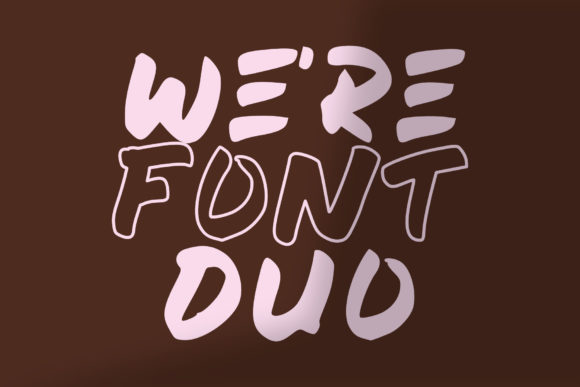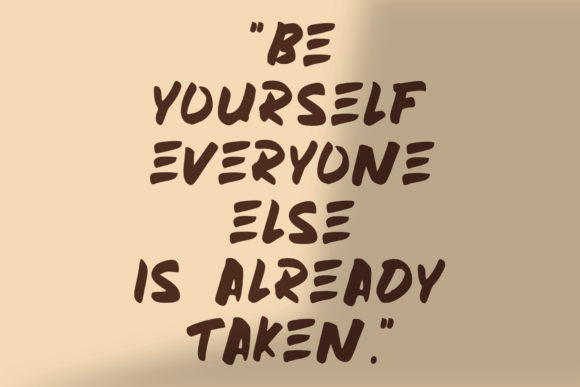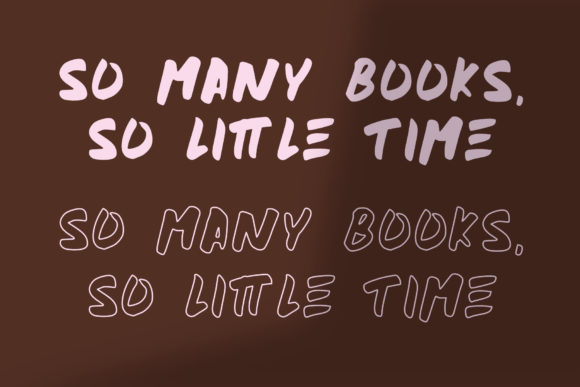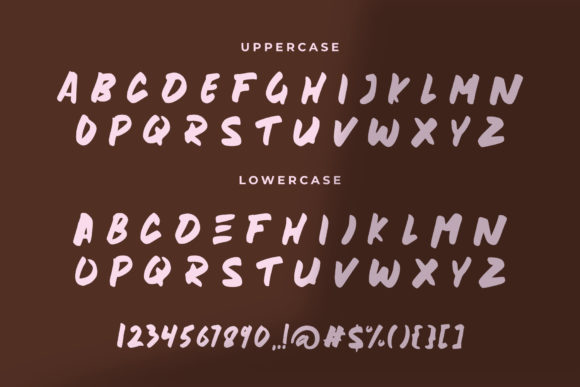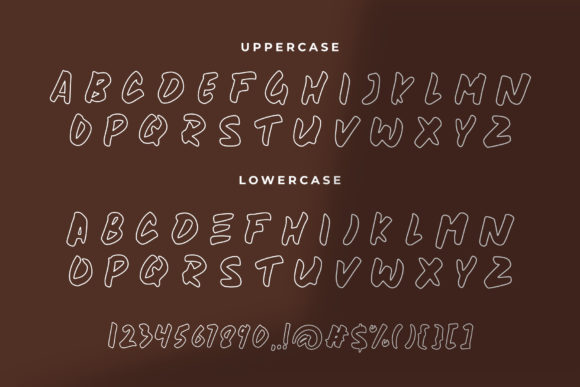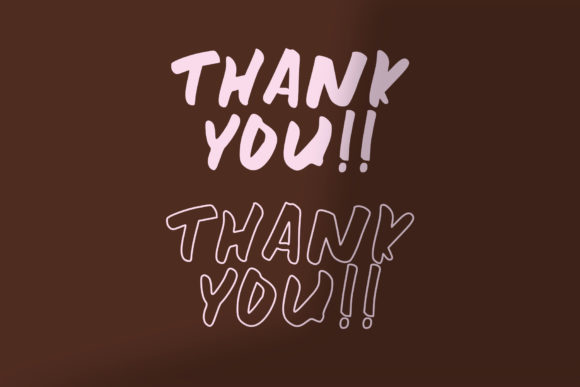
Introducing Bean Font: The Bold and Chunky Lettered Display Font
Are you tired of using the same old fonts for your creative projects? Do you want to make your designs stand out from the crowd? Look no further than Bean Font, a bold and chunky lettered display font that’s sure to add a touch of personality to your work. In this article, we’ll take a closer look at Bean Font, its features, and how you can use it to take your designs to the next level.
What is Bean Font?
Bean Font is a display font that’s designed to make a statement. Its bold and chunky letters are perfect for headlines, titles, and any other text that needs to grab attention. The font is highly legible, even at large sizes, making it ideal for use in a variety of creative projects, from posters and flyers to logos and branding materials.
Key Features of Bean Font
So, what sets Bean Font apart from other fonts? Here are some of its key features:
- Bold and Chunky Letters: Bean Font features bold and chunky letters that are sure to make your designs stand out.
- Highly Legible: The font is highly legible, even at large sizes, making it perfect for use in a variety of creative projects.
- Versatile: Bean Font can be used in a variety of contexts, from posters and flyers to logos and branding materials.
How to Use Bean Font in Your Designs
So, how can you use Bean Font in your designs? Here are a few ideas to get you started:
- Posters and Flyers: Use Bean Font to create eye-catching headlines and titles for your posters and flyers.
- Logos and Branding Materials: Bean Font is perfect for use in logos and branding materials, such as business cards and letterheads.
- Social Media Graphics: Use Bean Font to create bold and eye-catching social media graphics that are sure to grab attention.
- Signage: Bean Font is highly legible, making it perfect for use in signage, such as billboards and store signs.
Tips for Getting the Most Out of Bean Font
Here are a few tips for getting the most out of Bean Font:
- Use it Sparingly: Bean Font is a bold font, so use it sparingly to avoid overwhelming your designs.
- Experiment with Colors: Bean Font looks great in a variety of colors, so experiment with different colors to find the one that works best for your design.
- Pair it with Other Fonts: Bean Font can be paired with other fonts to create a unique and interesting look.
In conclusion, Bean Font is a bold and chunky lettered display font that’s perfect for designers and crafters who want to add a touch of personality to their work. Its highly legible letters make it ideal for use in a variety of creative projects, from posters and flyers to logos and branding materials. With its ease of use and versatility, Bean Font is a great addition to any designer’s toolkit.
- What is Bean Font? Bean Font is a bold and chunky lettered display font.
- What is Bean Font used for? Bean Font is perfect for use in a variety of creative projects, from posters and flyers to logos and branding materials.